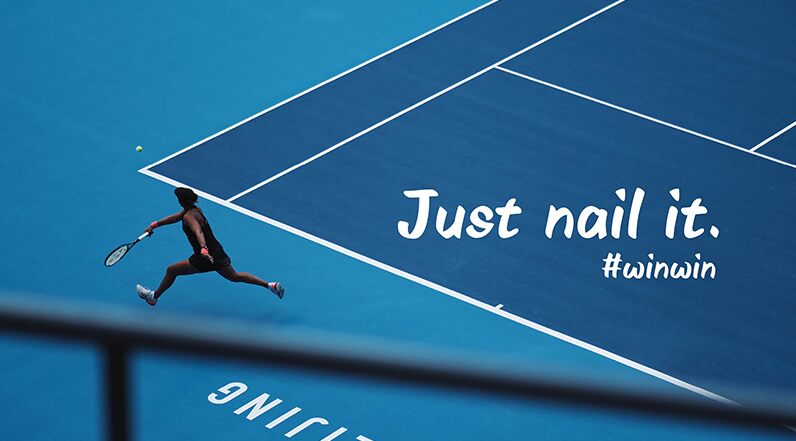
HF Skate Sonic, designed by HyFont Studio, is a dynamic handwritten font that exudes energy and attitude. Its semi-bold weight adds emphasis to each stroke, making it perfect for bold headlines and eye-catching designs. Whether you're creating graphics for a skateboarding brand or designing posters for a music festival, HF Skate Sonic is the ideal choice to convey a sense of youthful rebellion and creativity. With its playful yet edgy style, this font will make your projects stand out from the crowd.